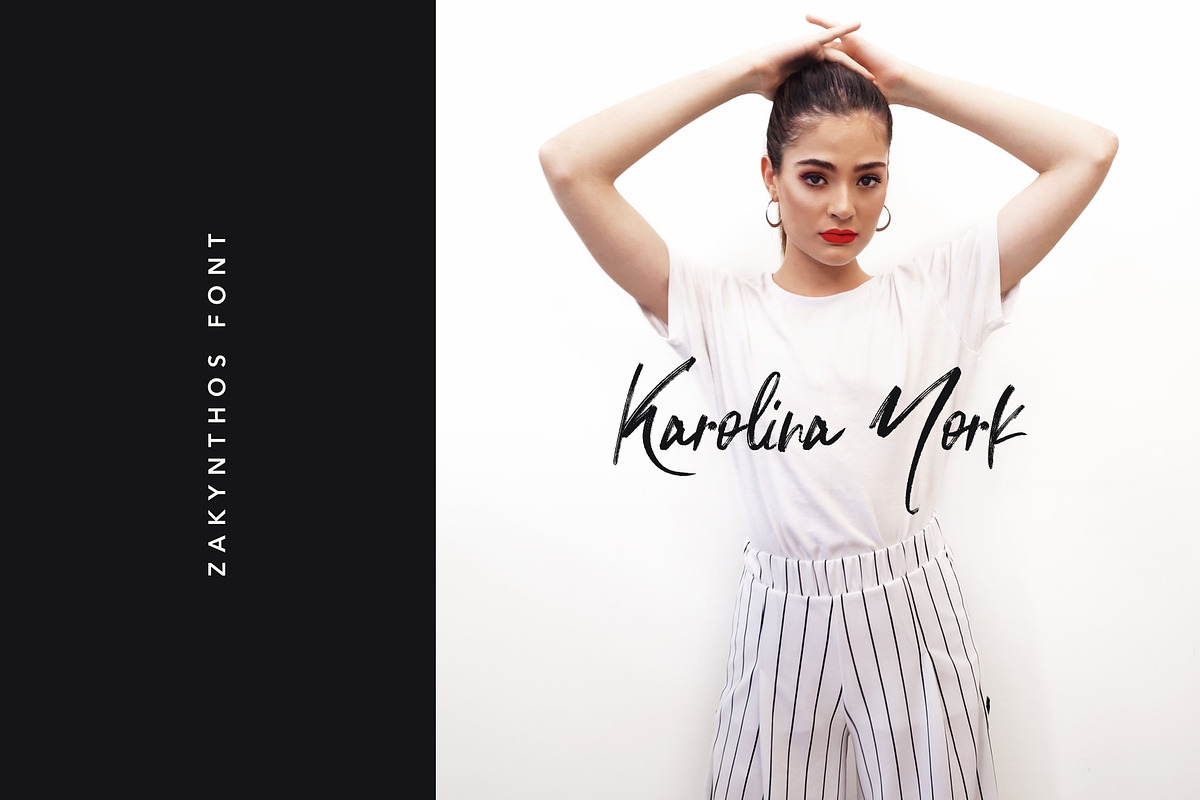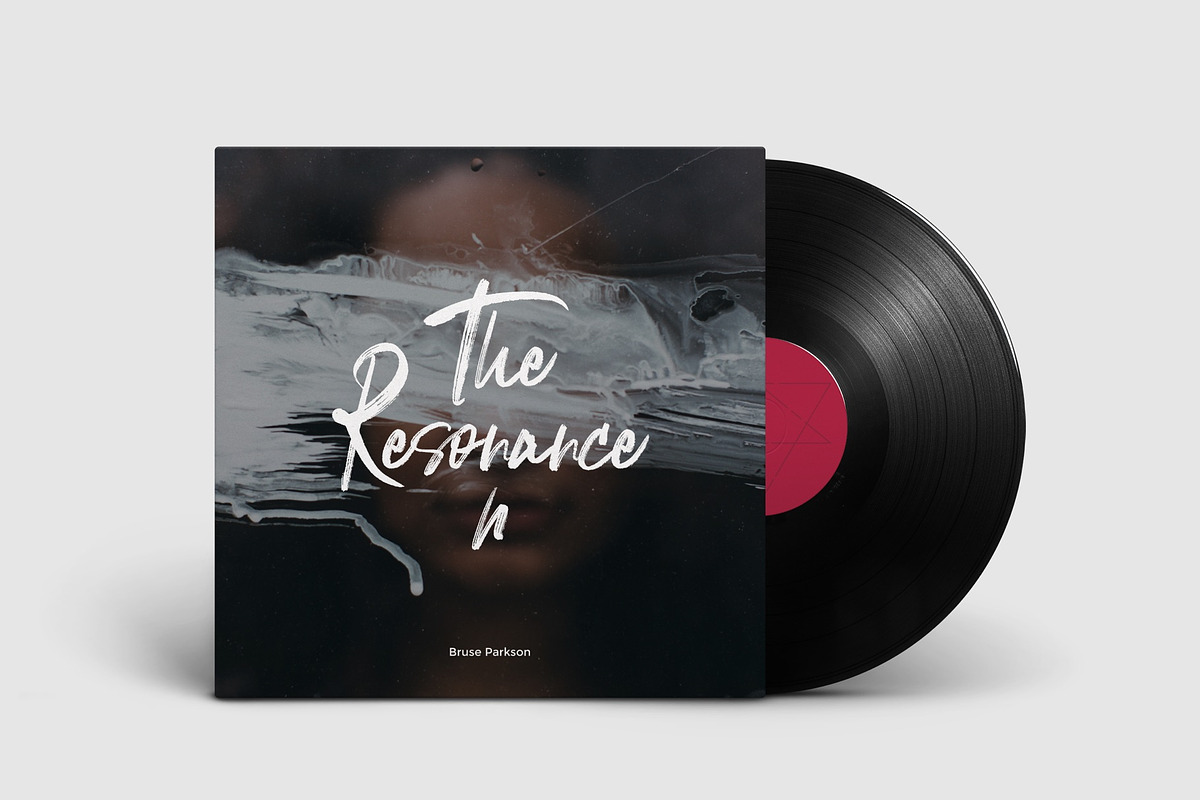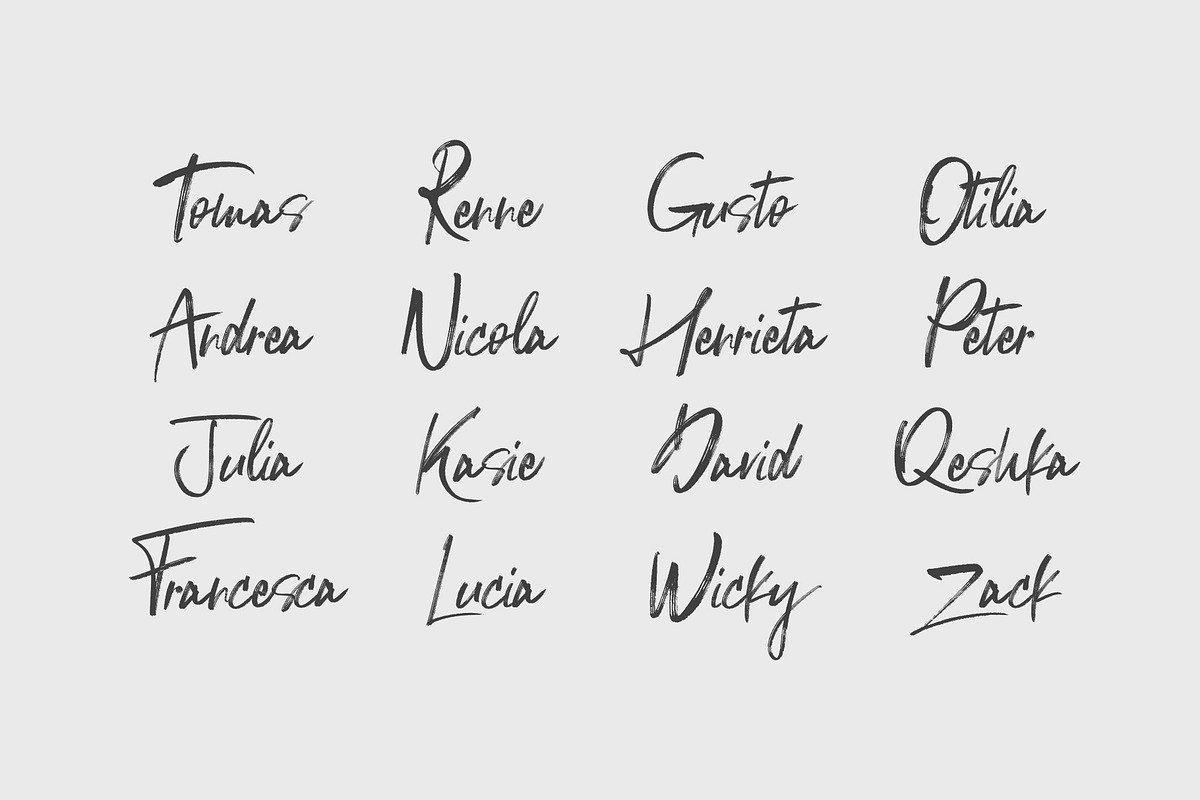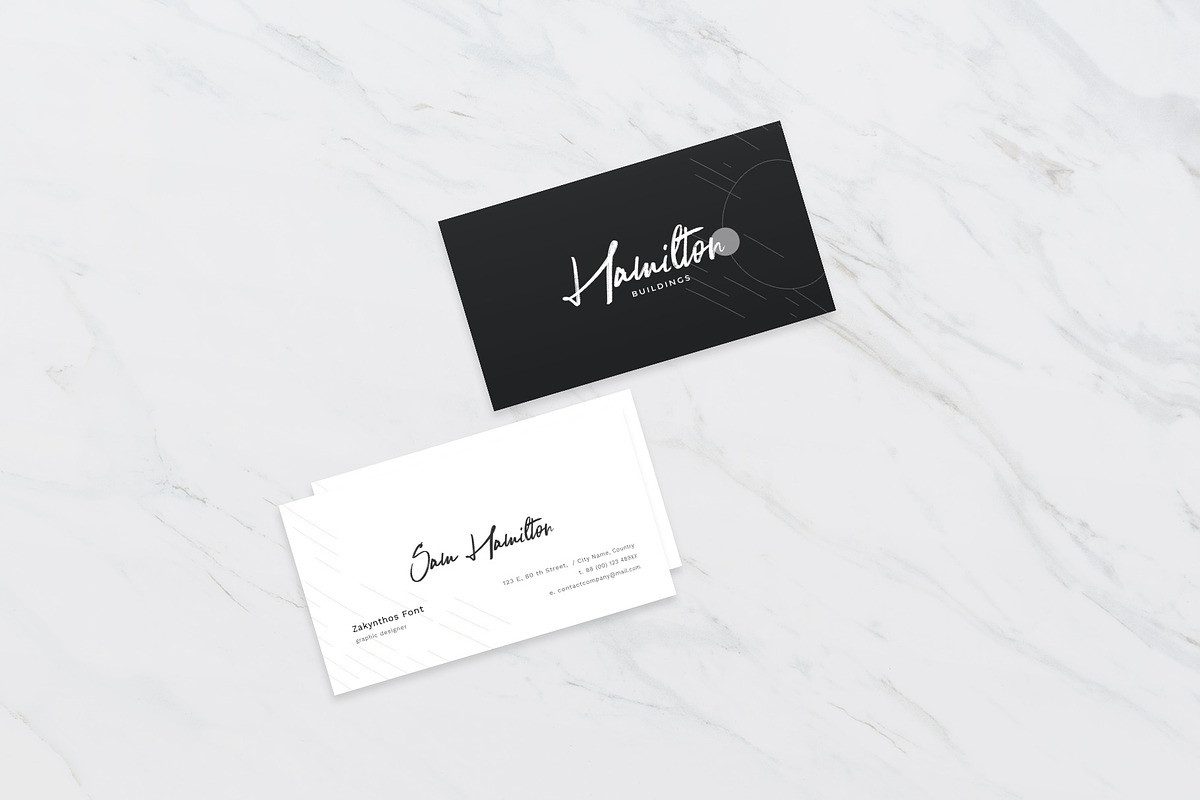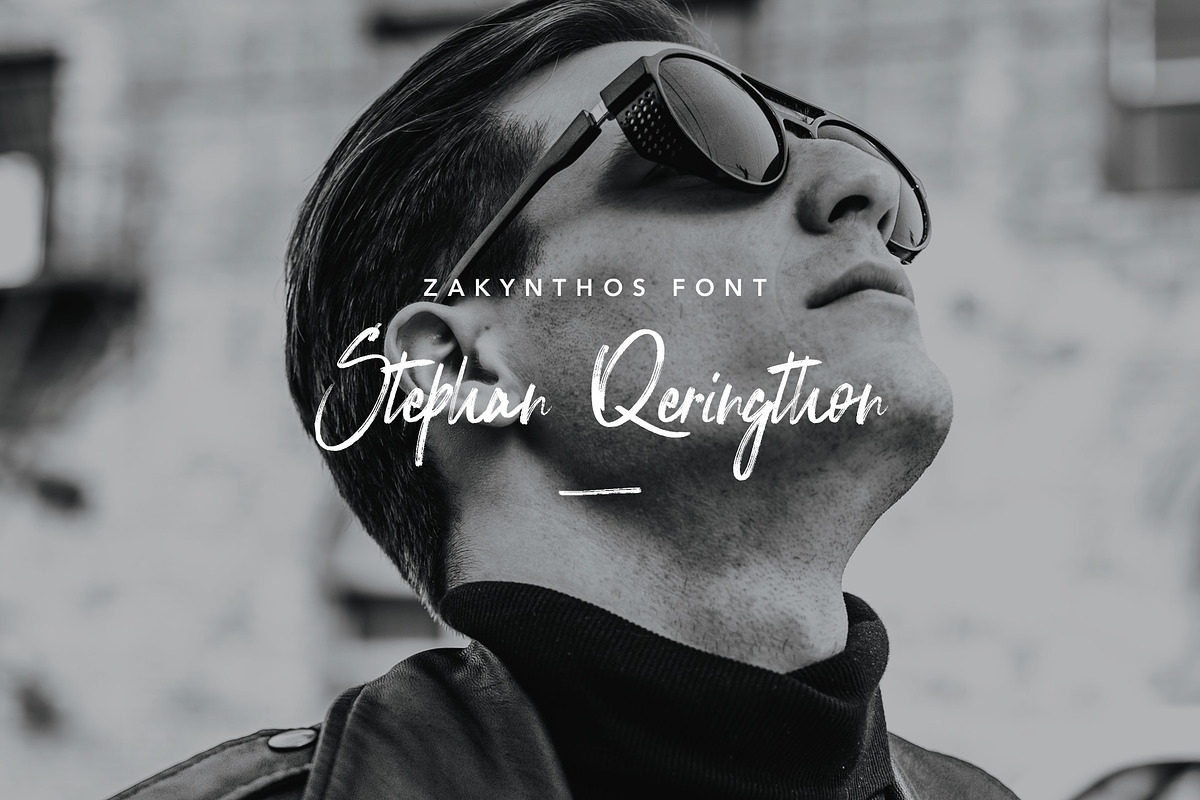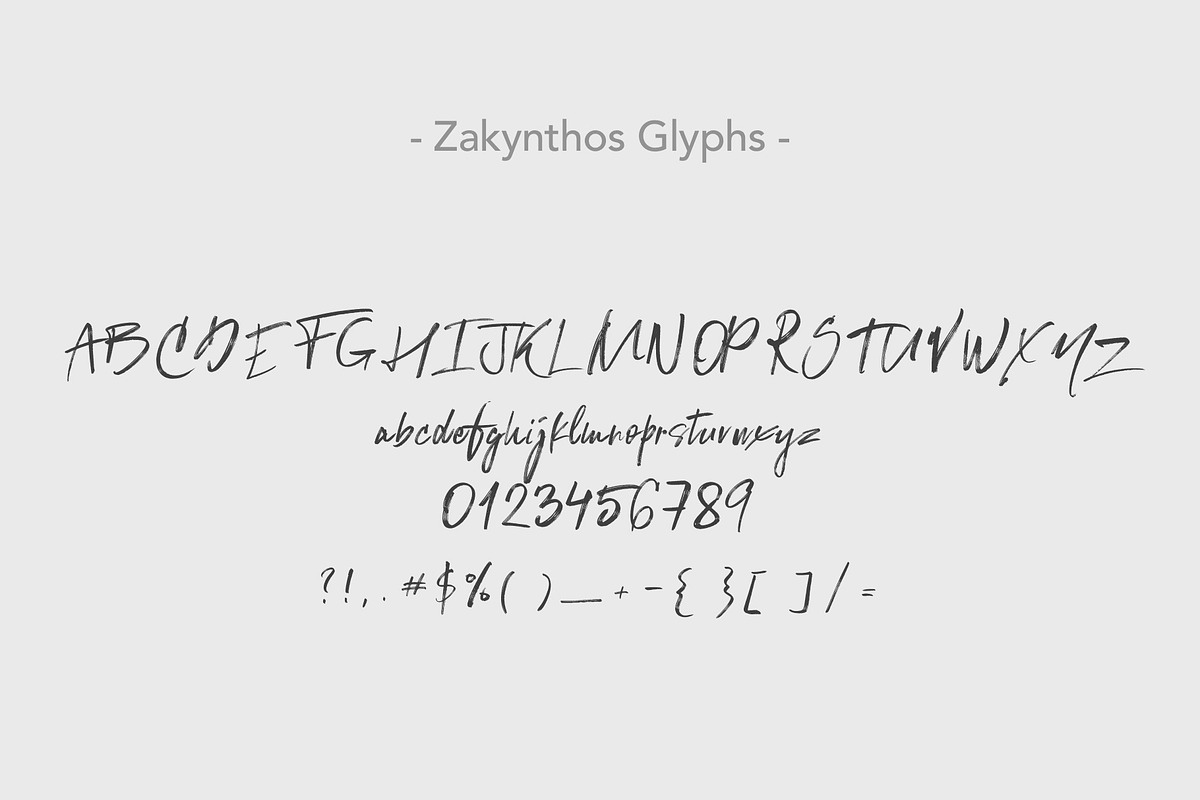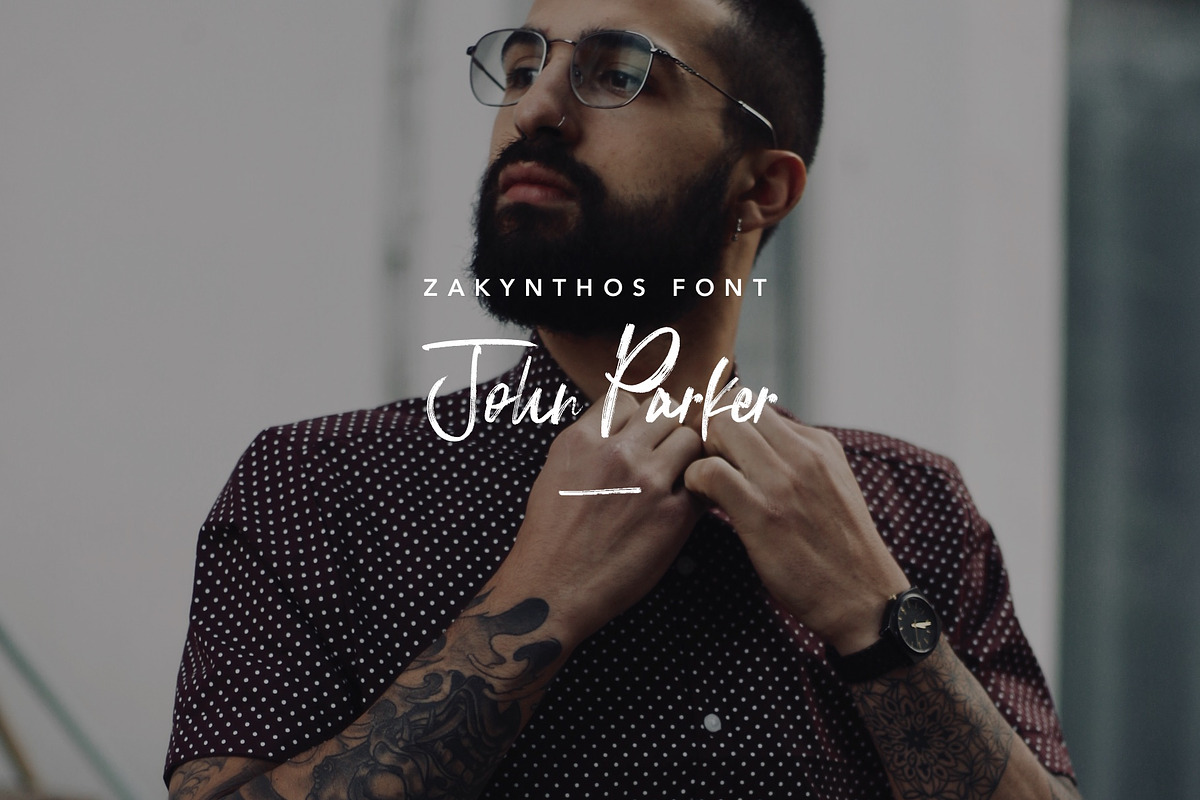
Zakynthos Signature Font
Give your designs an authentic handcrafted feel. Introducing the brand new handwritten font designed with vector paintbrush details. "Zakynthos" is perfectly suited to signature, stationery, logo, typography quotes, magazine or book cover, website header, clothing, branding, packaging design and more. A handwritten script font containing upper and lowercase characters, numerals and a large range of punctuation.
Font include multilingual support.
Zakynthos Signature Font by Goashape Studio fits naturally into Branding, posters, packaging, typography.